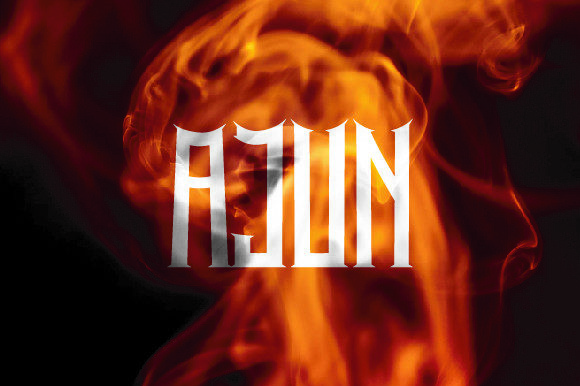
Prepare yourself to be mesmerized by Ajun, an enthralling font that exudes an aura of sophistication and elegance. Immerse yourself in its captivating blackletter design, reminiscent of ancient manuscripts with a contemporary twist. Each letterform is meticulously crafted to convey a sense of mystery and allure, ensuring your designs stand out from the ordinary.
With Ajun at your fingertips, you possess the power to transform your business flyers into captivating masterpieces. Its bold and commanding presence will grab the attention of potential customers, leaving them utterly captivated by your message. Let Ajun be your secret weapon to create marketing materials that truly resonate with your audience, driving them closer to making that all-important purchase.
Ajun is not just a font; it's an experience that will elevate your designs to new heights. Its timeless beauty and versatility make it the perfect choice for a wide range of projects, from logos and branding to posters and social media graphics. Unleash your creativity and let Ajun guide you towards extraordinary design achievements.